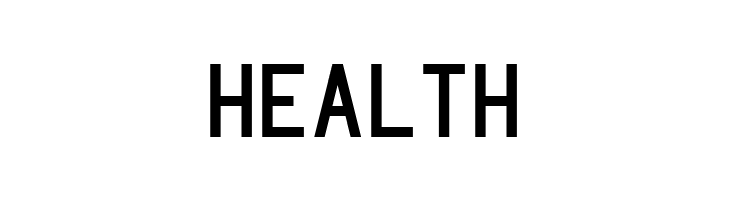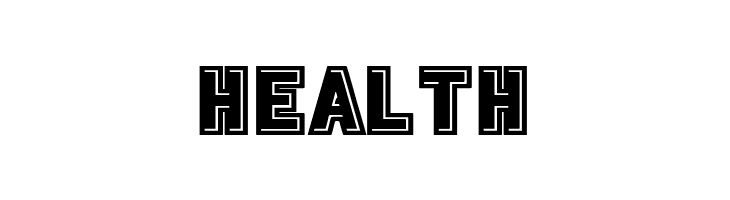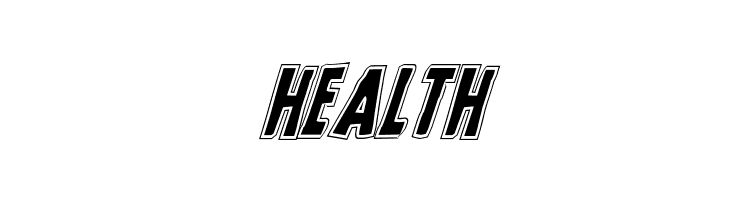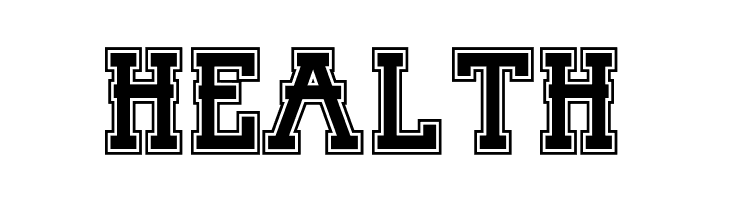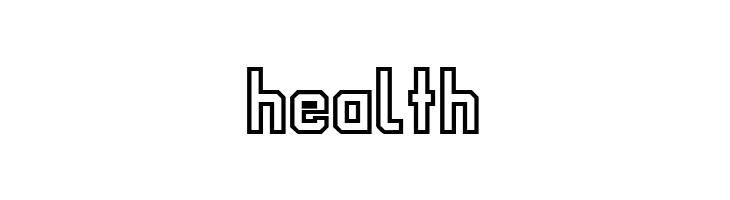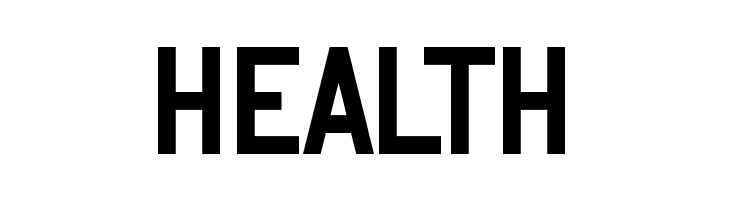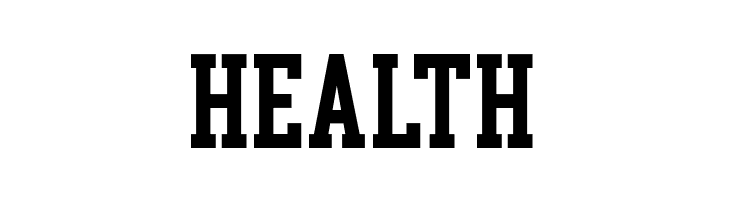
A bold, slab serif font with a collegiate, vintage style.
A bold, outlined collegiate-style font with a strong, structured appearance.
A bold, outlined collegiate-style font with strong, clean lines.
Bold, outlined collegiate font with an athletic, italicized style.
A bold, collegiate-style font with outlined, blocky characters.
A bold, geometric font ideal for impactful and modern designs.
A bold, collegiate-style font with a filled, outlined appearance.
Bold, italicized collegiate font with a strong, outlined design.
Bold, italic, athletic-style font with a blocky, geometric design.
A bold, distressed font with a vintage collegiate style.
A bold, vintage-inspired font with strong, geometric characters.
A bold, three-dimensional collegiate-style font with strong outlines and a shadow effect.
A bold, outlined collegiate font with a geometric structure and strong visual impact.
A bold, collegiate-style font with strong serifs and a layered, outlined design.
A bold, geometric font with a collegiate, sports-inspired style.
Bold, italicized font with a collegiate, outlined style.
A bold, decorative font with a vintage, textured style ideal for standout designs.
Bold, geometric font with a strong, three-dimensional effect.
A bold, geometric font with a collegiate and athletic style.
A bold, semi-condensed serif font with a strong, authoritative presence.
A bold, collegiate-style font with strong, block-like characters.
A bold, outlined collegiate-style font with strong, clean lines.
A bold, outlined font with a modern and playful style, featuring geometric shapes and rounded edges.
A bold, geometric font with a strong, modern presence.
A bold, geometric font with angular shapes and a futuristic style.
A bold, italicized font with a futuristic, dynamic style and three-dimensional effect.
A futuristic, geometric font with bold outlines and a modern aesthetic.
A modern, italic, outlined font with a futuristic and dynamic style.
A bold, geometric font with a three-dimensional outline and rounded corners.